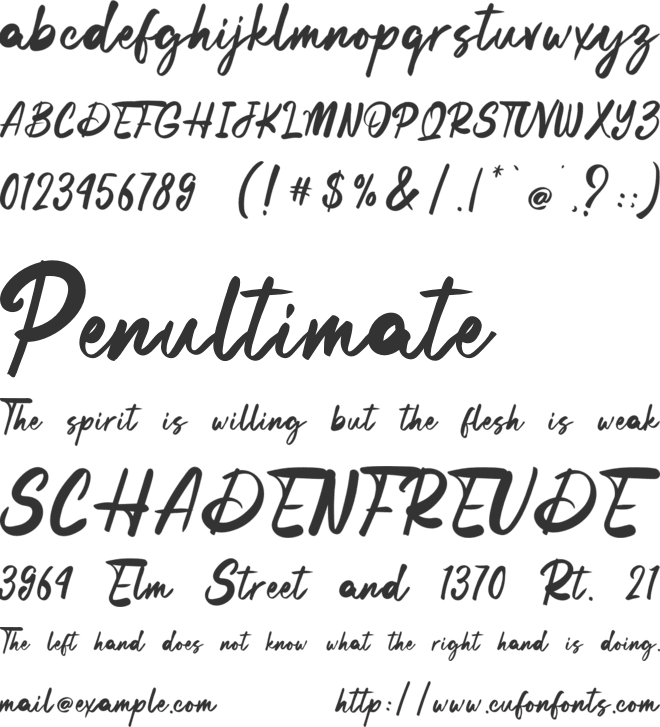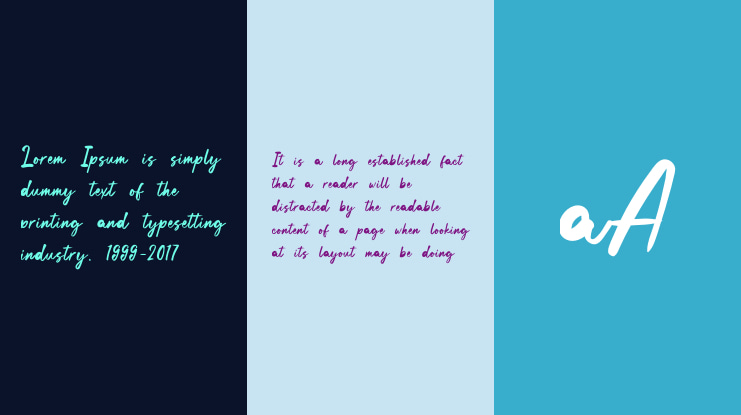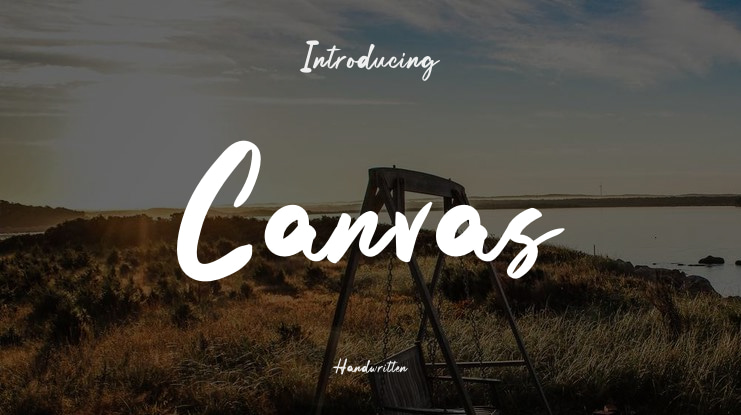
Canvas Font
Bold Canvas is a font made with manual handwriting on paper that has a beautiful and natural curve shape with thick and thin characteristics according to hand strokes, ligature and swash features are available ready to use if you need them.